LaTeX is a typesetting system widely used in academic and professional environments to create documents containing mathematical equations and complex formatting.
One of its key features is the ability to control the font size of equations to ensure clarity and readability. Understanding LaTeX equation font sizes is essential for creating documents that adhere to academic standards and convey mathematical information effectively.
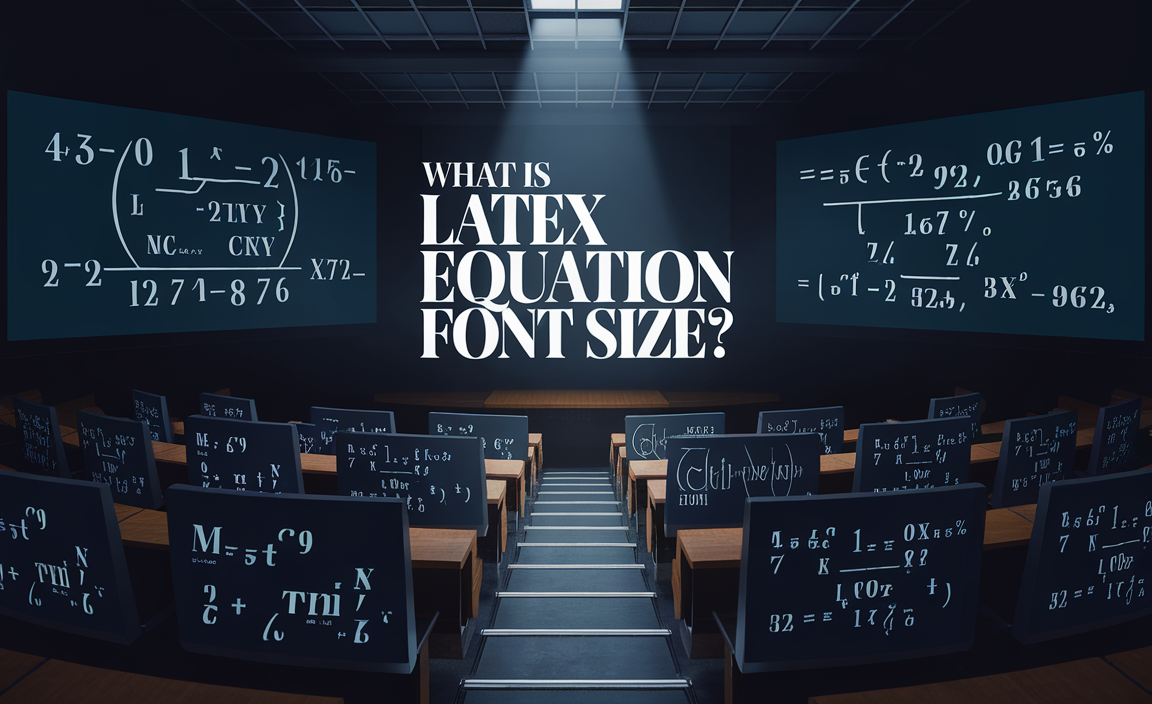
Explore The Font Size in LaTeX
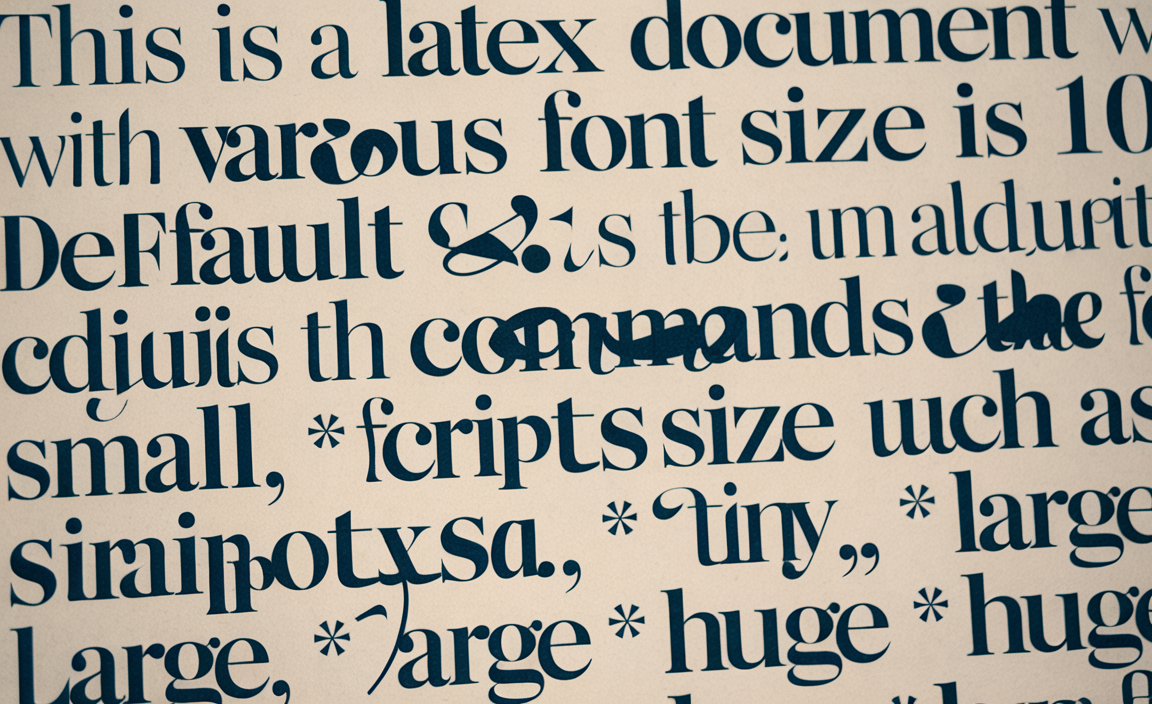
LaTeX provides various font size commands that allow users to adjust the size of both normal text and math mode content, including equations. The default font size in most LaTeX document classes is 10 points, but it can be adjusted globally or for specific parts of the document.
Default Font Sizes in LaTeX
- \tiny: Smallest size, used for footnotes or subscript-heavy equations.
- \scriptsize: Ideal for subscripts and superscripts in math expressions.
- \footnotesize: Often used in captions.
- \small: Slightly smaller than normal text.
- \normalsize: The default size in most document classes.
- \large: Slightly larger than normal text.
- \Large: Commonly used for emphasis in math equations.
- \LARGE, \huge, \Huge: Increasingly larger sizes for specific use cases.
Font Sizes in Math Mode
In math mode, LaTeX provides flexibility to change the size of math equations independently of surrounding text. This is particularly useful for creating inline math, where the size must align with normal text, or display math, where the equation is centered and larger for emphasis.
Commands to Adjust Font Size
- Inline Math: Use
\textstyleor keep the equation in a single$...$block. Example: - Display Math: Use
\displaystylefor larger, centered equations. Example:
Adjusting Math Font Size
You can use font size commands to adjust the size of math symbols, fractions, subscripts, and superscripts. For instance:
Choosing the Right Font for Math
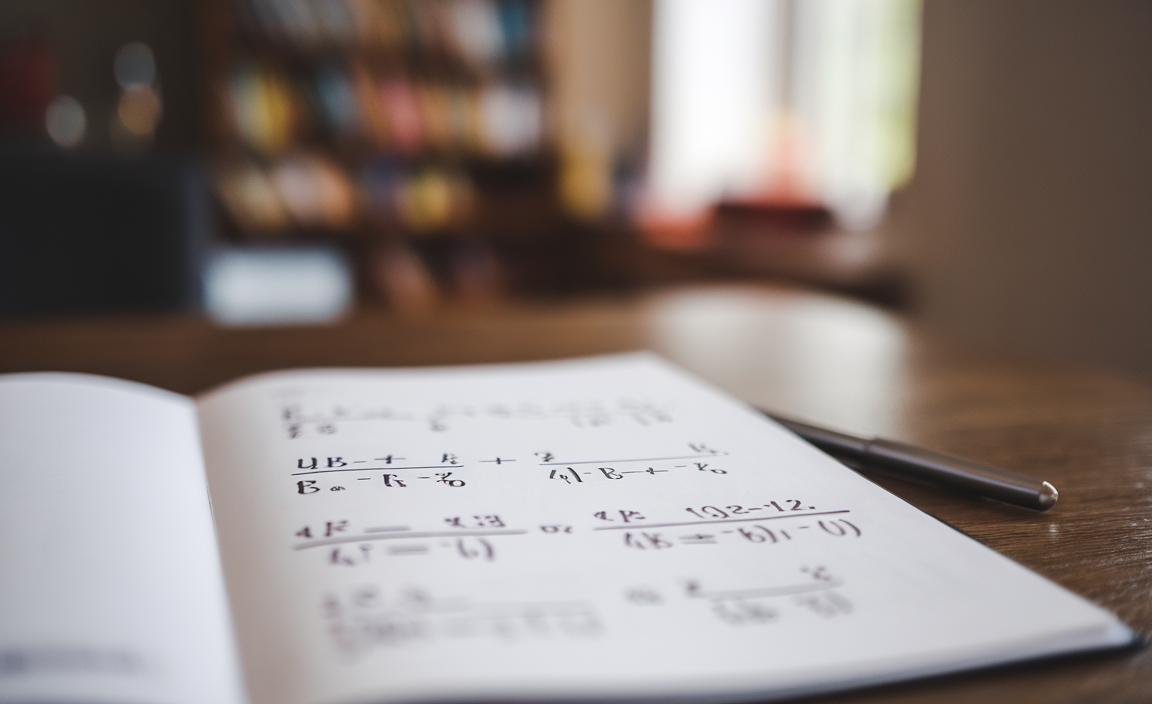
LaTeX supports a variety of font families tailored for mathematics. The default font for math is italic, as it helps distinguish variables from text. However, specific document classes, like those provided by the American Mathematical Society (AMS), offer specialized math fonts.
Common Math Fonts
- Cambria Math: Popular for its clarity in equations.
- Latin Modern Math: A modern take on the default Computer Modern font.
- Tex Gyre: Offers a range of font families compatible with LaTeX.
Best Practices for Font Sizes in Math Equations
- Match the Surrounding Text: Ensure the font size of inline equations aligns with the normal text for a seamless appearance.
- Use Display Math for Complex Equations: Larger, centered equations are easier to read and follow.
- Avoid Overcrowding: Use \scriptsize or \footnotesize for dense subscripts or superscripts.
- Check Document Class Defaults: The document class determines default font sizes and styles. Adjust these globally using options like
[12pt]in the\documentclasscommand.
Common Challenges and Solutions
1. LaTeX Font Warnings
When changing font sizes, you may encounter warnings like “Font shape not available.” This often happens when the selected font doesn’t support the desired size or style. Use compatible fonts or packages like amsmath to resolve this issue.
2. Customizing Math Symbols
To achieve a unique appearance for mathematical symbols, use font packages such as:
mathpazofor Palatino fonts.eulervmfor Euler fonts.amsmathfor extended math capabilities.
3. Combining Text and Math
Incorporate normal text within equations using \text{} or \textrm{}:
1. What is the default font size in LaTeX?
The default font size in most document classes is 10pt, but it can be set to 11pt or 12pt using options like [11pt] in the \documentclass command.
2. How can I change the font size of equations?
Use commands like \small, \Large, or \Huge around the equation. For example:
3. How do I handle subscripts and superscripts in LaTeX?
LaTeX automatically adjusts the size of subscripts and superscripts. For manual control, use \scriptsize or similar commands:
4. Can I use different fonts for math and text?
Yes, use font packages like mathpazo or eulervm to specify different fonts for mathematical content.
5. What is the role of the document class in font sizes?
The document class determines the default size and appearance of text and math content. For example, using article vs. report can change font size defaults.
6. How do I change the overall font size in a LaTeX document?
To change the overall font size, specify the size in the \documentclass command. For example:
This sets the base font size to 12pt, affecting both text and math content.
7. Can I scale equations independently of the surrounding text?
Yes, you can use \scalebox from the graphicx package to scale an equation:
This adjusts the equation size while keeping the surrounding text unchanged.
8. How can I align equations of different font sizes?
Use the \array environment or the amsmath package’s align environment to align equations of varying font sizes. For example:
9. What are the different math modes in LaTeX?
LaTeX provides inline math (within text, using $...$) and display math (centered equations, using \[...\] or \begin{equation}...\end{equation}). Inline math matches the text size, while display math often uses a larger size.